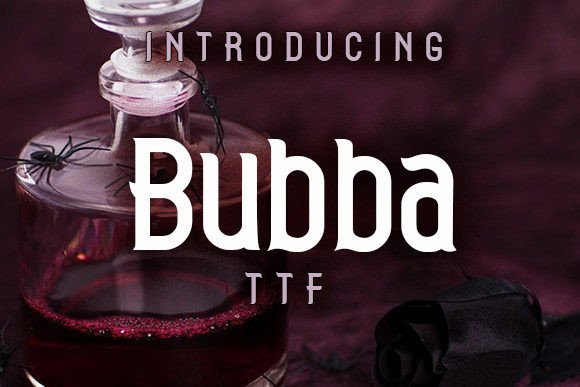
Unleash the exquisite charm of Bubba Font, a remarkable Gothic display font that transports your designs to new heights of elegance. Immerse yourself in the grandeur of its graceful lines, captivating curves, and timeless beauty. With Bubba Font as your artistic companion, unlock a world of design possibilities and turn your creative visions into stunning realities.
Picture the allure of a wedding invitation adorned with Bubba Font, its intricate characters exuding an aura of sophistication and romance. Imagine the awe-inspiring presence of posters and flyers, their messages amplified by the distinctive personality of Bubba Font. From eye-catching logos to captivating social media graphics, Bubba Font emerges as an indispensable tool in the arsenal of discerning designers.
Beyond its visual appeal, Bubba Font possesses an unwavering commitment to versatility. Its inherent adaptability shines across a diverse range of design applications, effortlessly conforming to your creative demands. Whether you seek to craft elegant branding materials, enthralling marketing campaigns, or simply unleash your artistic flair, Bubba Font stands ready to elevate your creations to unprecedented heights.
The versatility of Bubba Font extends to its seamless integration with various design software, ensuring effortless implementation into your creative workflow. Unleash your imagination and witness the transformative power of Bubba Font as it breathes life into your designs, transforming them into captivating masterpieces.
Embrace the timeless appeal of Bubba Font and embark on a creative journey that knows no bounds. Allow its captivating aura to infuse your designs with a touch of elegance and distinction. Experience the joy of effortless creativity as Bubba Font becomes your trusted companion, propelling your designs to new heights of excellence.